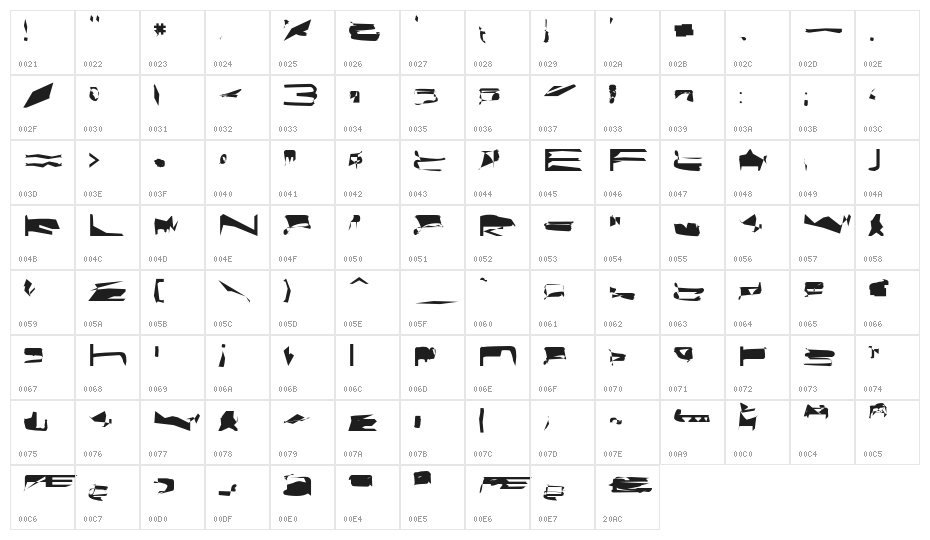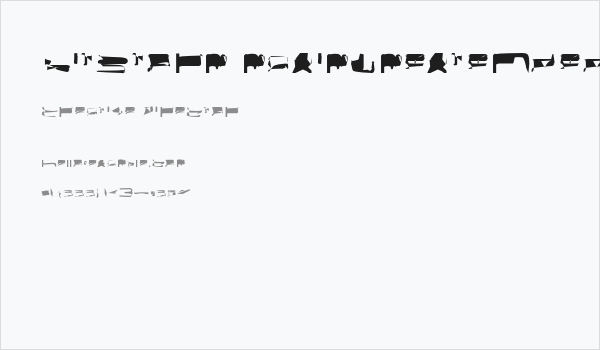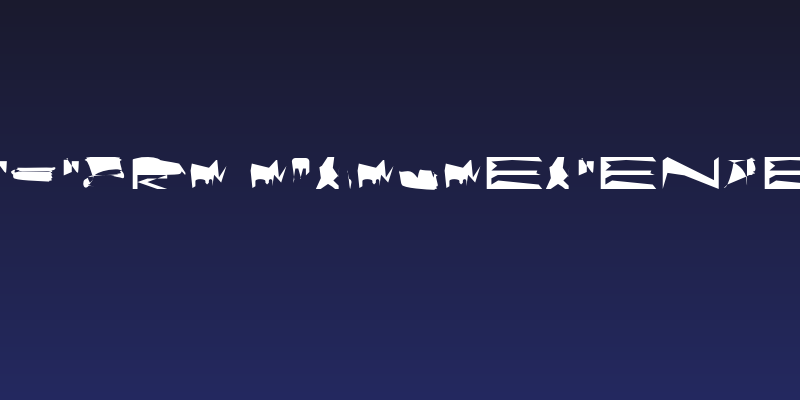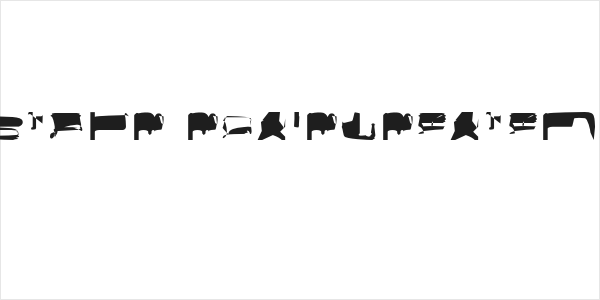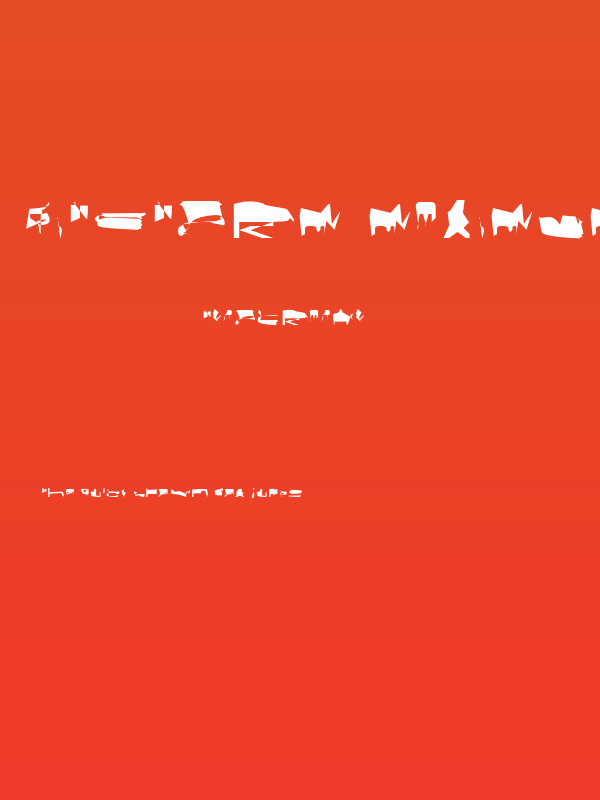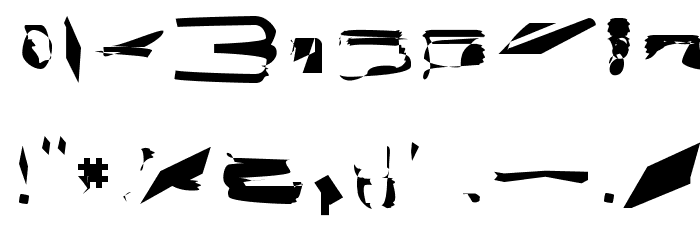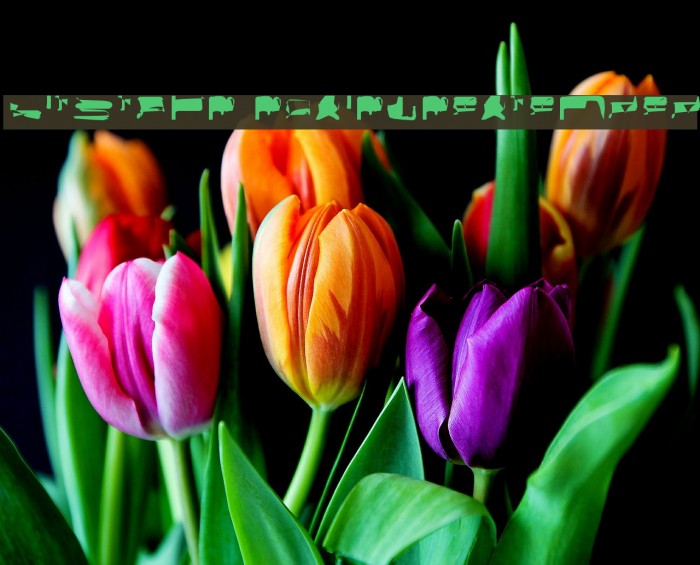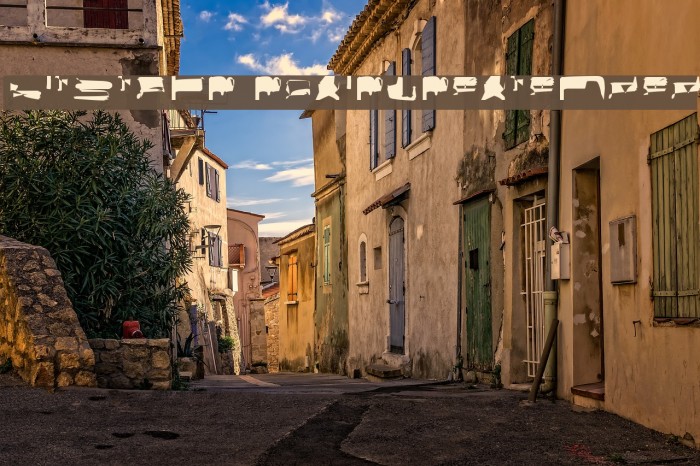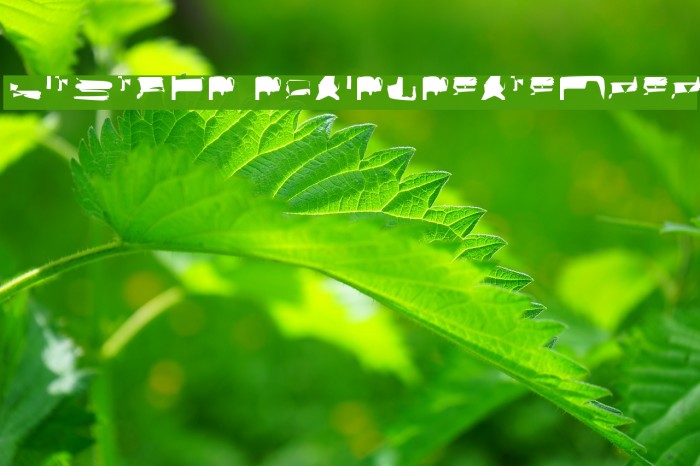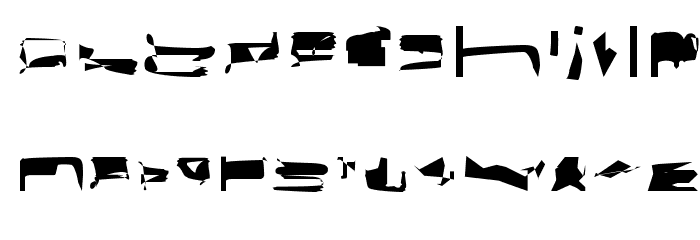
bitstorm maximumextended Font
bitstorm maximumextended Description
This font features a highly abstract and fragmented design, characterized by its sharp, angular shapes and irregular forms. The letters are heavily stylized, with a futuristic and edgy appearance, making it difficult to read at first glance. The characters are composed of disconnected elements that create a sense of movement and dynamism. This font is best suited for artistic and experimental projects where readability is not the primary concern. Its unique style makes it stand out, offering a bold statement in any design.
| Overall Style | Futuristic, Experimental |
| Use Case | Logos, Artistic displays, Experimental design |
| Proposed Projects | Ideal for experimental art projects, futuristic themes, and avant-garde designs. |